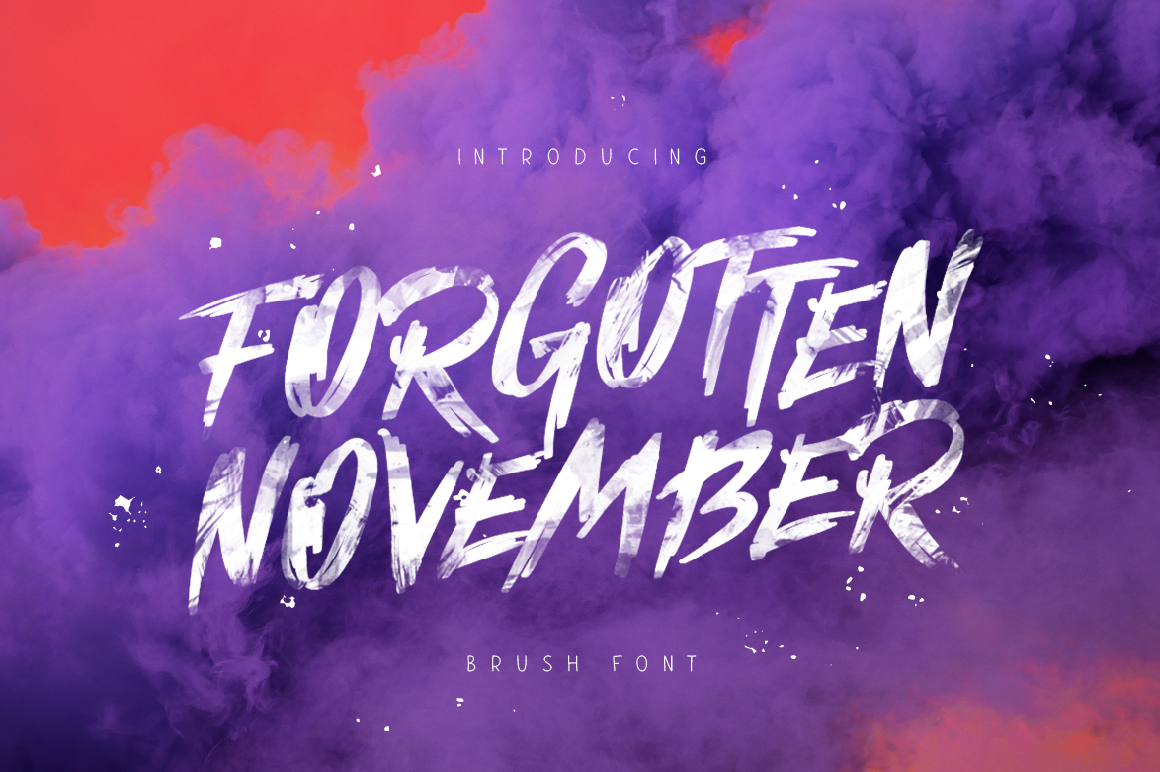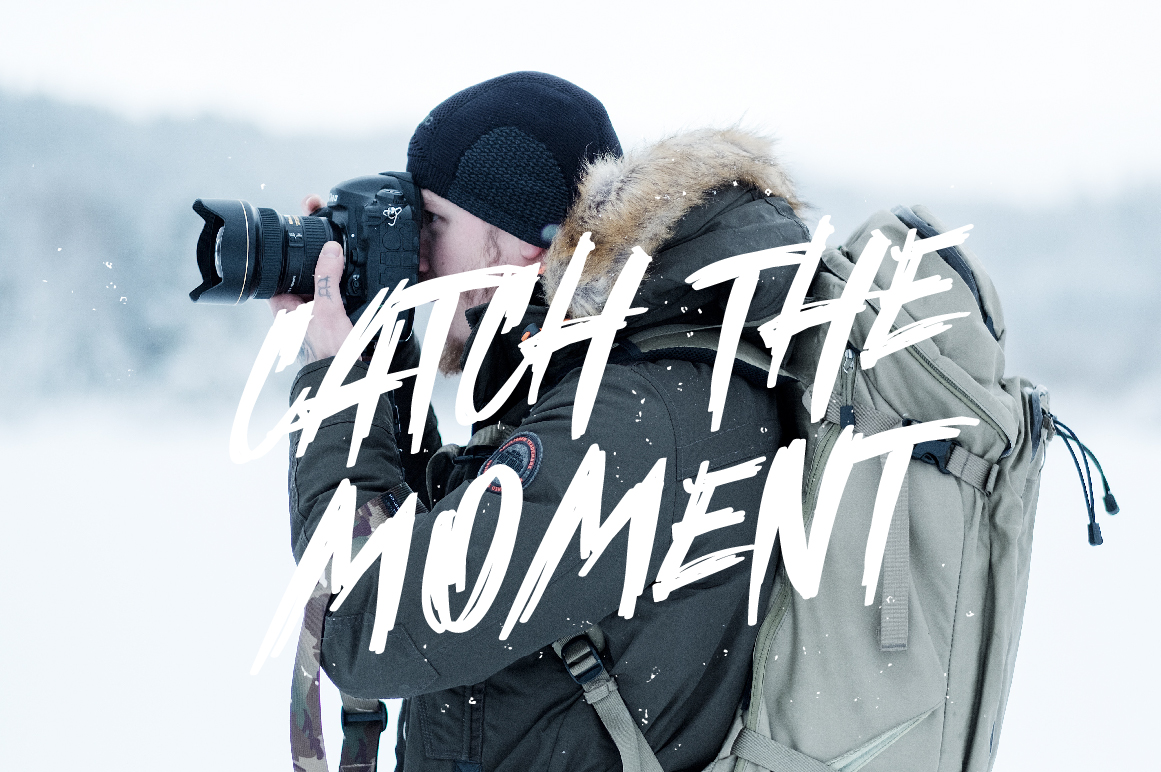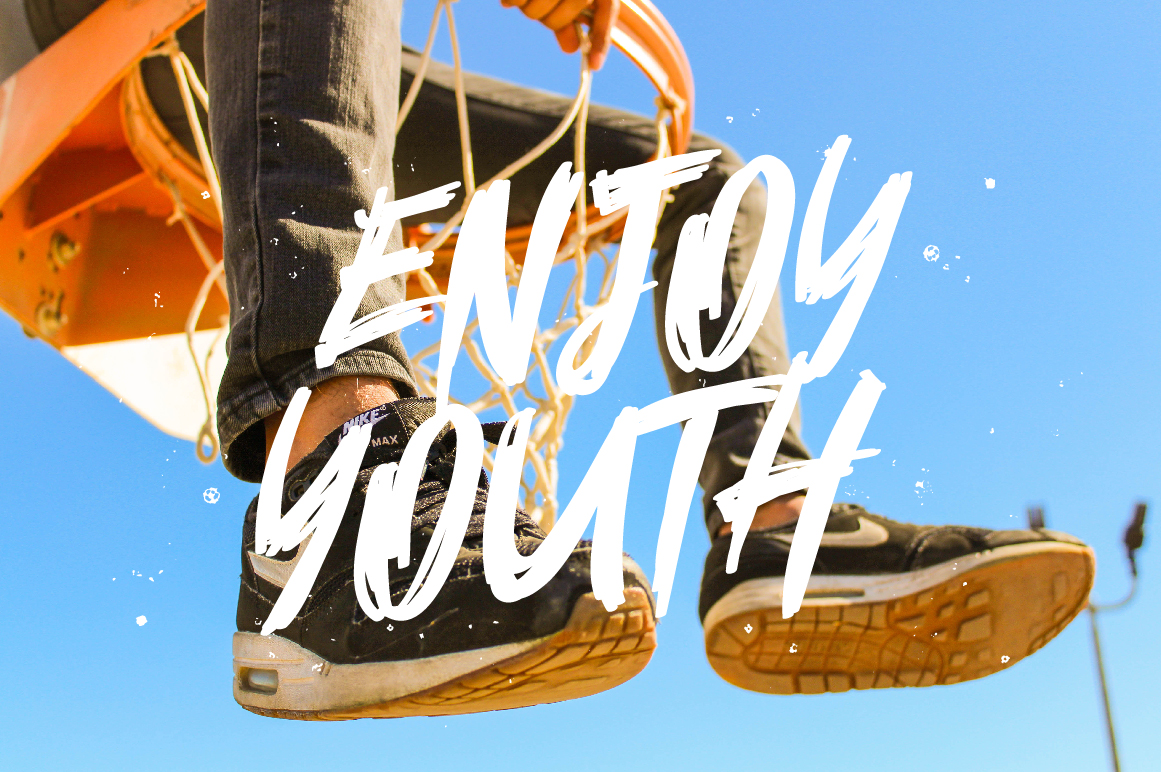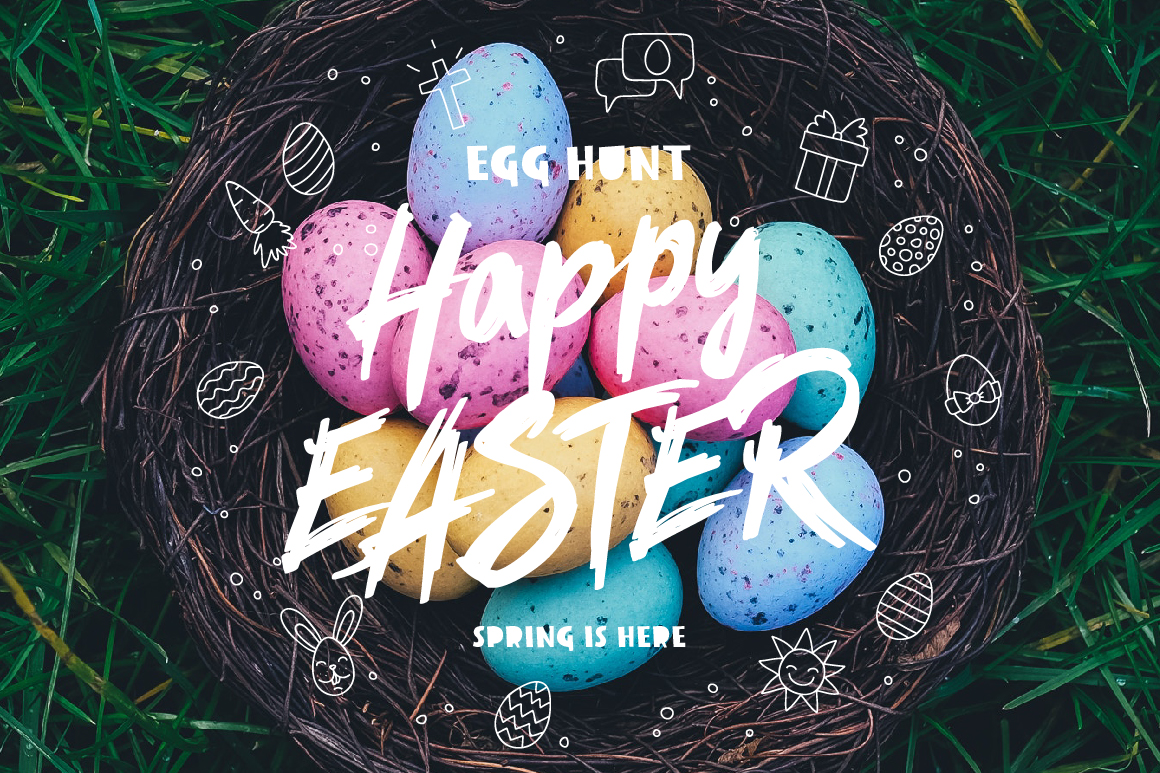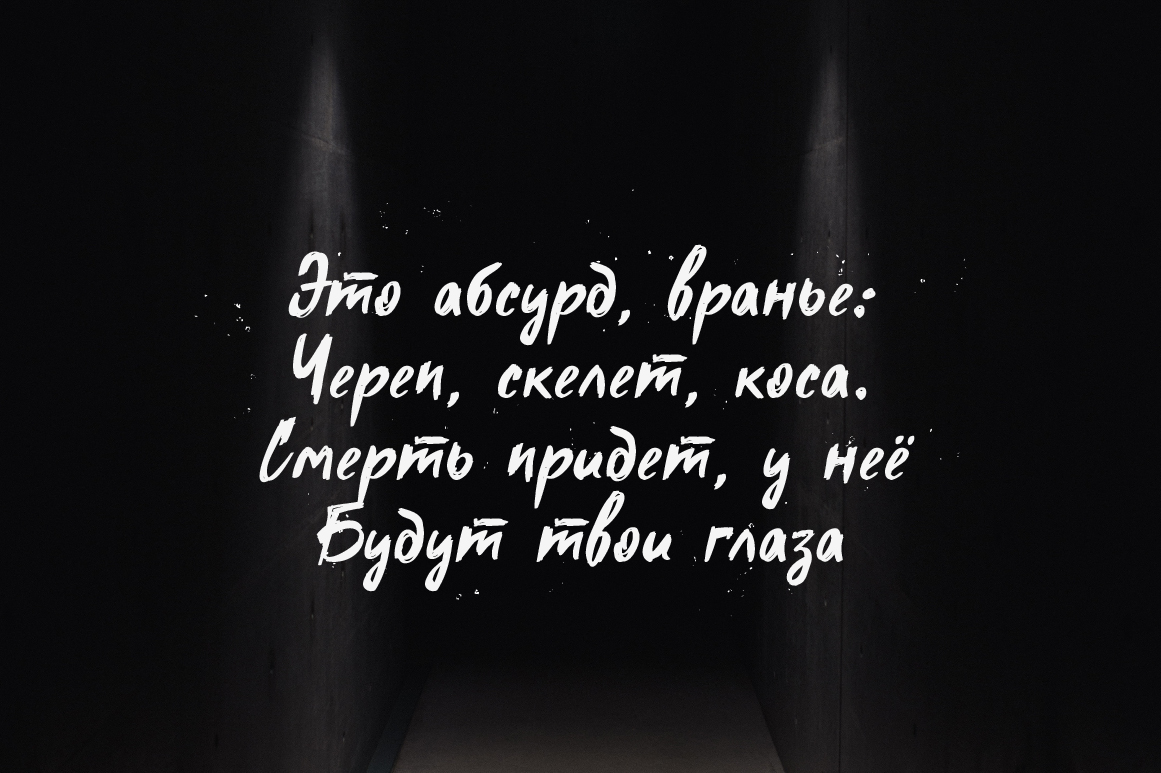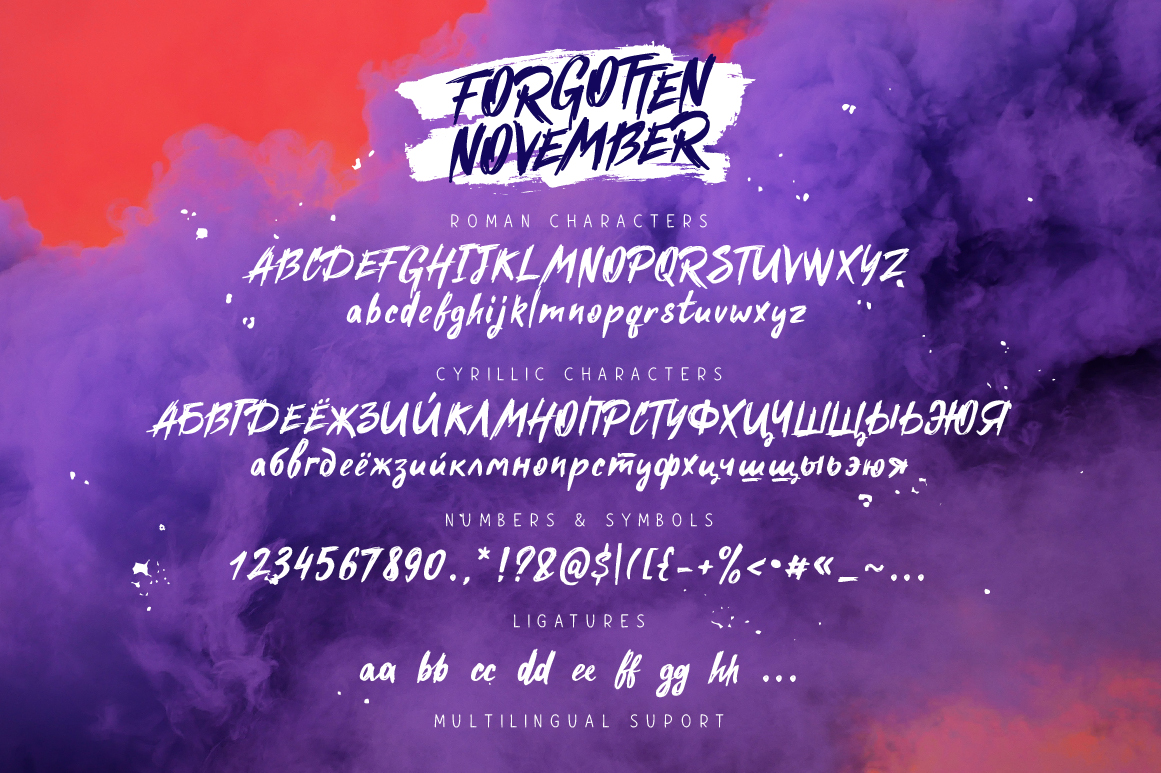
Forgotten November Font
About Forgotten November Font
Forgotten November is a handwritten font. It comes with uppercase and lowercase characters, large set of punctuation glyphs, numerals, ligatures, cyrillic characters and multilingual support.